Gold fonts aren’t just about looking pretty (though they absolutely nail that too). They’re about creating that immediate “wow” factor that makes viewers stop scrolling and take notice. Whether you’re designing for luxury brands, wedding invitations, or holiday promotions, the right gold font can transform your project into something truly spectacular.
I’ve spent countless hours exploring the world of metallic typography, and let me tell you – not all gold fonts are created equal. Some shimmer with subtle elegance, while others practically blind you with their brilliance. The key is knowing which golden typeface will make your design shine brightest.
In this comprehensive guide, we’ll explore the most dazzling gold fonts available in 2026, uncover what makes them so captivating, and learn how to use them effectively in your own projects. So grab your favorite design software, and let’s dive into this treasure trove of golden typography!
The Most Brilliant Gold Fonts of 2026
Let’s get straight to the good stuff – here are my top picks for gold fonts that are absolutely killing it right now:
Golden Dunes
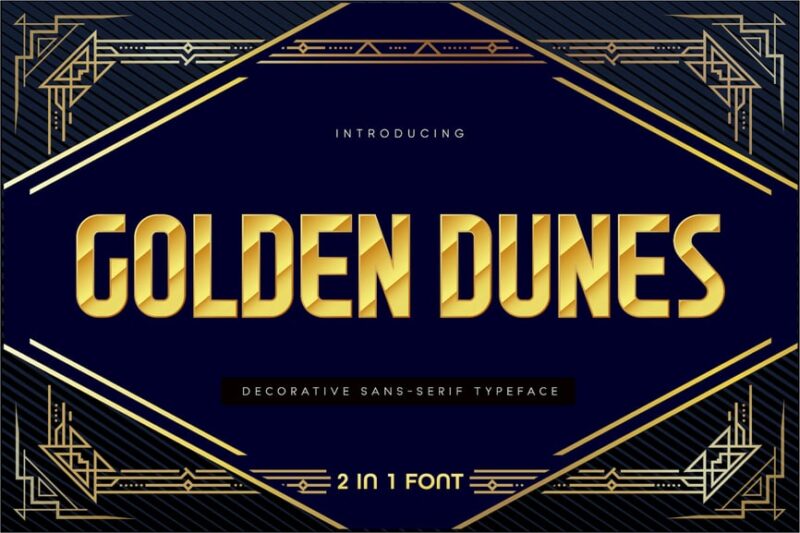
Golden Dunes is a solid sans-serif font with a decorative flair. It evokes a luxurious atmosphere, making it perfect for simple, but posh designs. It’s a great alternative to the popular Impact font.
Golden Jewelry
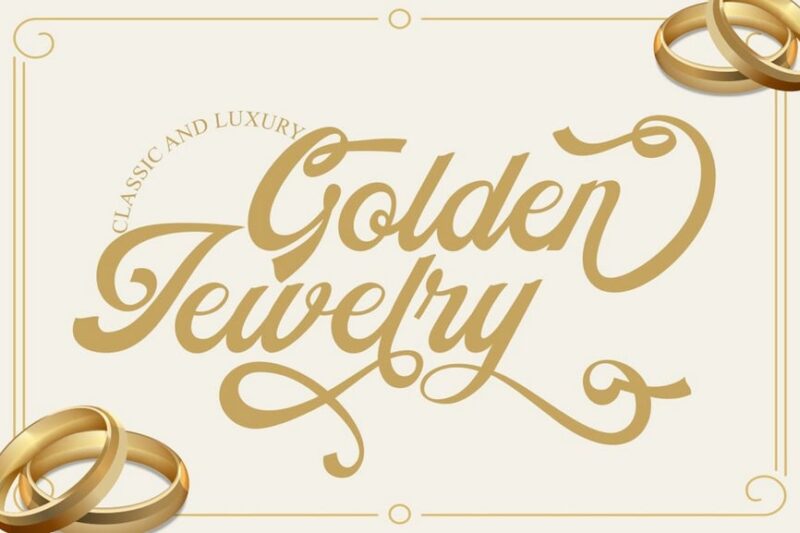
Golden Jewelry is a classic and luxurious script font. Its elegant curves and ornate details make it ideal for high-end jewelry branding, wedding invitations, or any design requiring a touch of opulence.
Gold Chamber
Gold Chamber is a vintage script font reminiscent of bar signage and traditional sign painting. Its nostalgic charm makes it perfect for creating retro-inspired designs or adding a classic touch to modern projects.
Golden Script Font
Golden Script Font is a sophisticated handwritten typeface that emulates the look of gold text. Its fluid, graceful strokes make it ideal for luxury branding, high-end packaging, or elegant invitations.
IB – Golden Donut
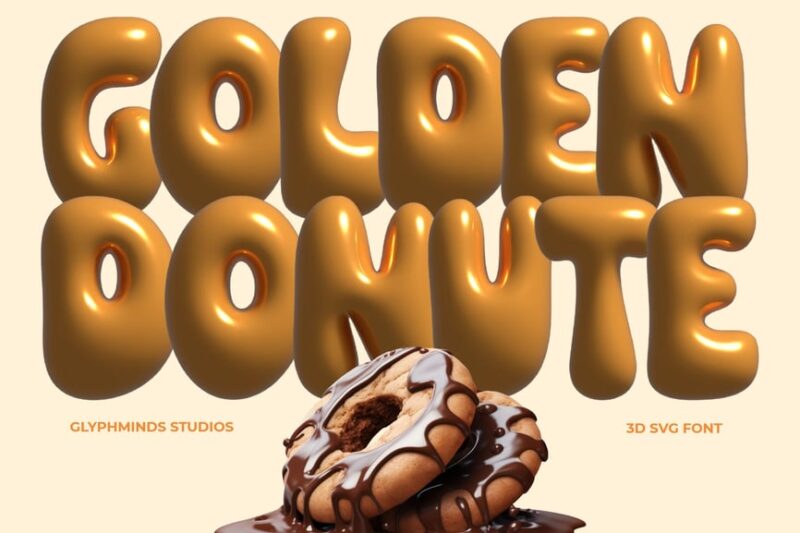
IB – Golden Donut is a decorative bubble font with a balloon-inspired, golden glow effect. Its playful, eye-catching design makes it perfect for creating attention-grabbing headlines or logos, especially for nightlife or entertainment-related projects.
Golden Batch
Golden Batch is an elegant serif font with a groovy twist. Its combination of classic serif elements and retro-inspired details makes it versatile for both traditional and modern design projects, particularly in the fashion or lifestyle sectors.
Melted Gold
Melted Gold is a unique SVG font that simulates the appearance of molten gold. Its liquid-like, dripping effect makes it perfect for creating eye-catching headlines or logos, especially for luxury brands or high-end products.
Gold Port
Gold Port is a versatile font duo combining a script and a sans-serif typeface. This pairing offers designers flexibility in creating harmonious layouts, making it ideal for branding projects, editorial designs, or marketing materials.
Golden Ballpoint
Golden Ballpoint is a handwritten script font that combines luxury with a touch of carnival flair. Its fluid strokes and playful flourishes make it suitable for both elegant and whimsical design projects, from invitations to packaging.
Golden Rooster
Golden Rooster is a bold, high-contrast tall font. Its striking appearance and bright character make it perfect for creating impactful headlines or logos, particularly for brands aiming to make a strong visual statement.
Goldfill Modern Calligraphy
Goldfill Modern Calligraphy is a elegant script font with a contemporary twist. Its smooth, flowing lines and modern aesthetic make it ideal for wedding invitations, branding projects, or any design requiring a touch of sophisticated handwriting.
Goldroom
Goldroom is a decorative font inspired by the Art Deco style of the 1930s. Its geometric shapes and luxurious feel make it perfect for creating vintage-inspired designs, particularly for hospitality, fashion, or entertainment industries.
Gold Empire
Gold Empire is a bold blackletter font with a metallic aesthetic. Its imposing presence and gothic style make it ideal for creating powerful logos or headlines, particularly in the music industry or for brands with an edgy, alternative image.
Golden dust typeface
Golden dust typeface is a decorative font with a fashionable, textured appearance. Its unique, granular effect adds a touch of luxury and intrigue to designs, making it perfect for high-end product packaging or editorial headlines.
Remember, the most effective gold typography doesn’t just look expensive – it feels expensive. It should make viewers believe that whatever you’re presenting is worth their time, attention, and investment.
So go ahead, add some golden glamour to your next project. With the right gold font and thoughtful application, you’ll create designs that don’t just catch the eye – they capture the imagination and leave lasting impressions that truly sparkle.
After all, in a world full of ordinary typography, why not make yours absolutely golden?